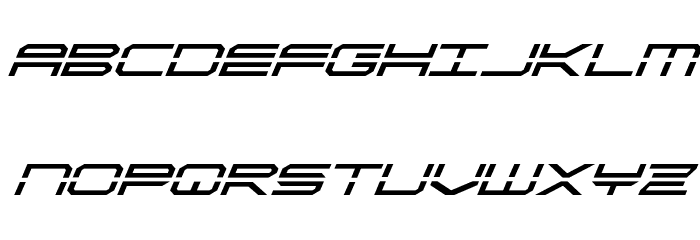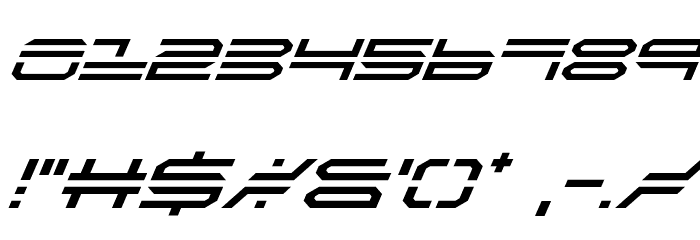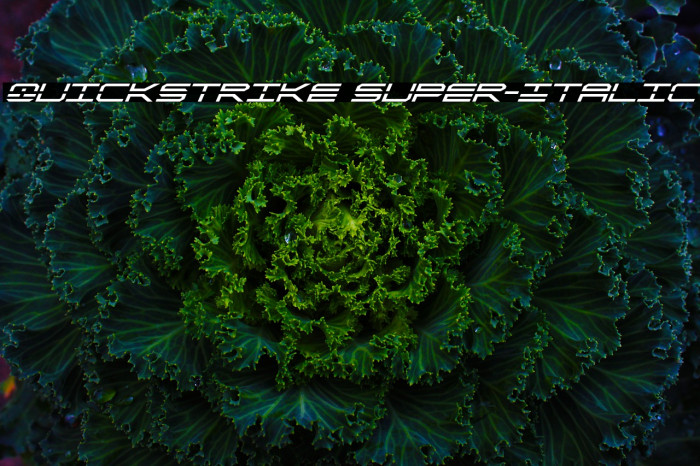
QuickStrike Super-Italic Font
This font features a futuristic and dynamic design with a strong emphasis on speed and movement. The characters are italicized, giving them a forward-leaning posture that suggests motion. The strokes are composed of parallel lines, creating a sense of depth and layering. This design choice adds a unique, high-tech aesthetic to the font. The uppercase and lowercase letters maintain a consistent style, with angular edges and a streamlined appearance. The numerals and special characters follow the same design principles, ensuring uniformity across all glyphs. The font's boldness and distinctive style make it ideal for projects that require a modern and energetic look.
A futuristic, italicized font with parallel line strokes and a dynamic, high-tech appearance.